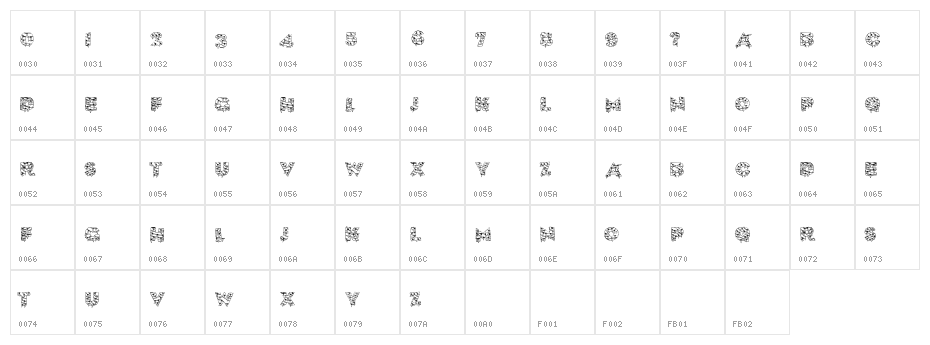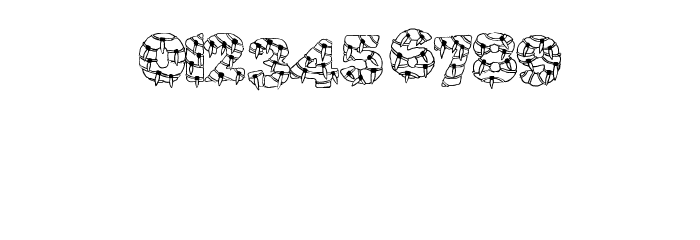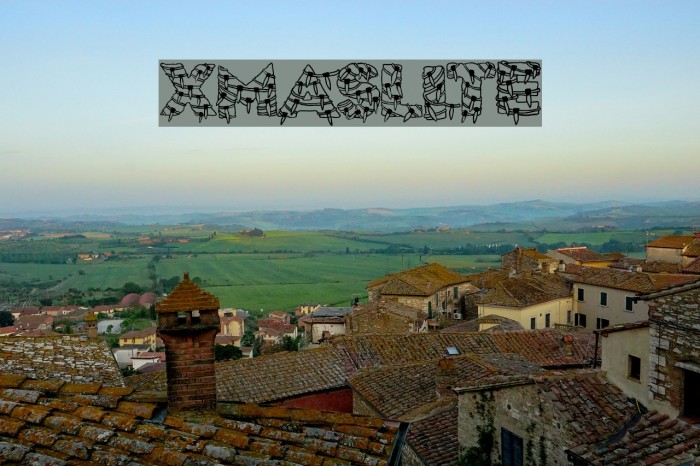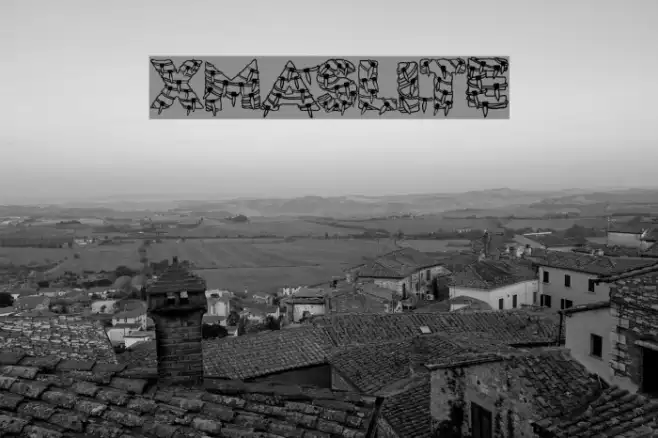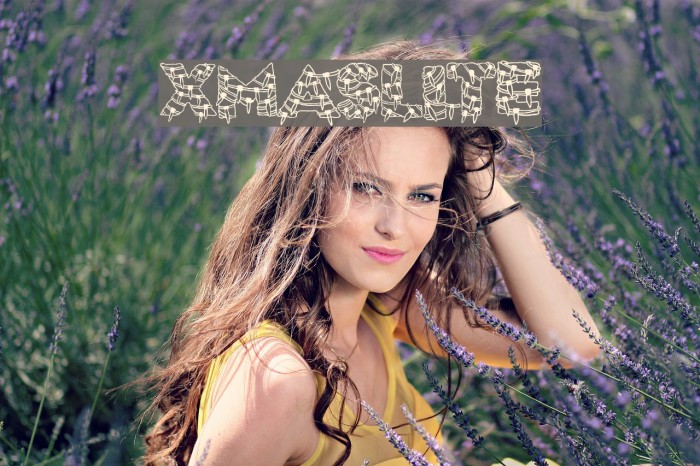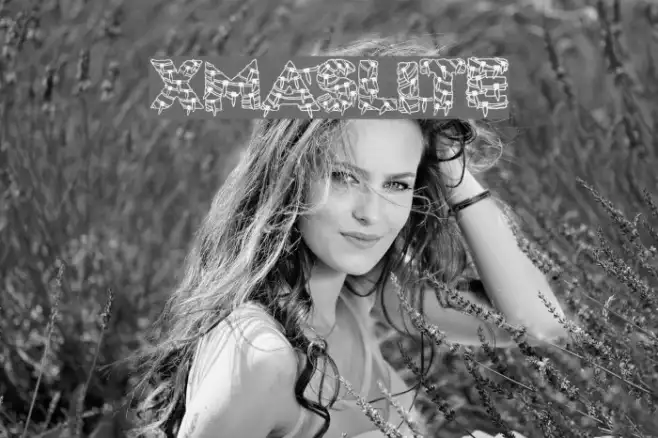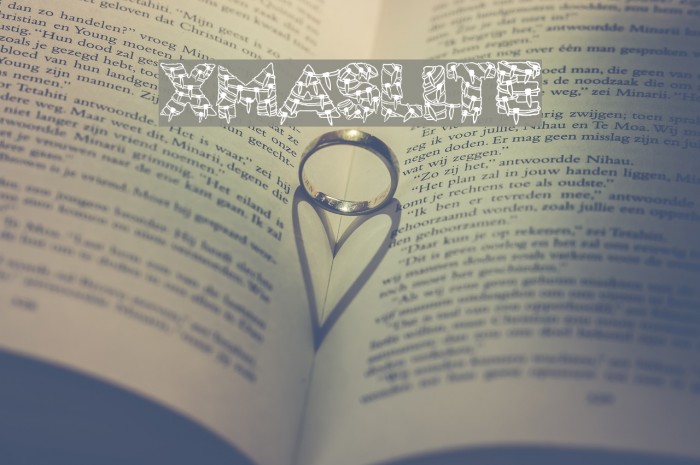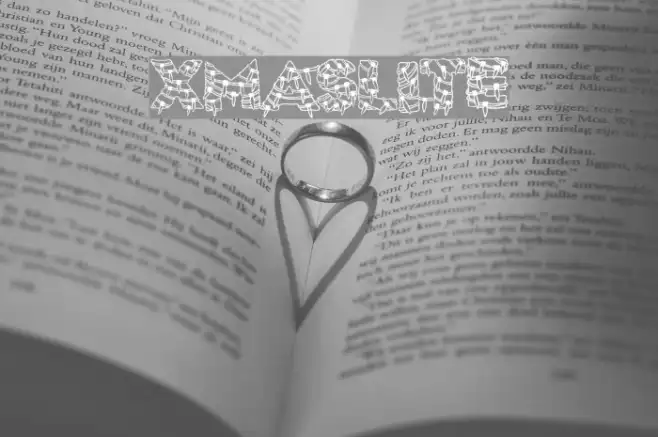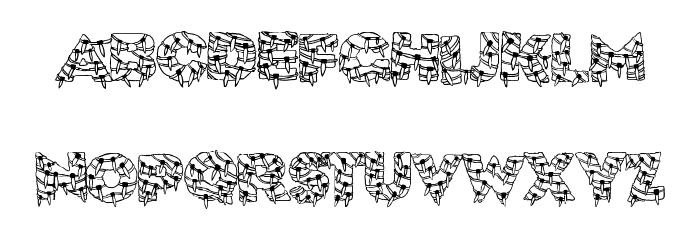
XmasLite Font
XmasLite Description
This font features a playful and festive design, reminiscent of holiday decorations. Each character is adorned with intricate patterns that resemble Christmas lights, giving it a unique and whimsical appearance. The letters are bold and have a three-dimensional effect, with a mix of angular and rounded shapes that create a dynamic visual impact. The font maintains a consistent style across uppercase, lowercase, and numerical characters, making it versatile for various design needs. Its decorative nature makes it ideal for projects that require a touch of holiday spirit.
| Proposed Projects | Ideal for holiday-themed posters, greeting cards, festive banners, and seasonal advertisements. |